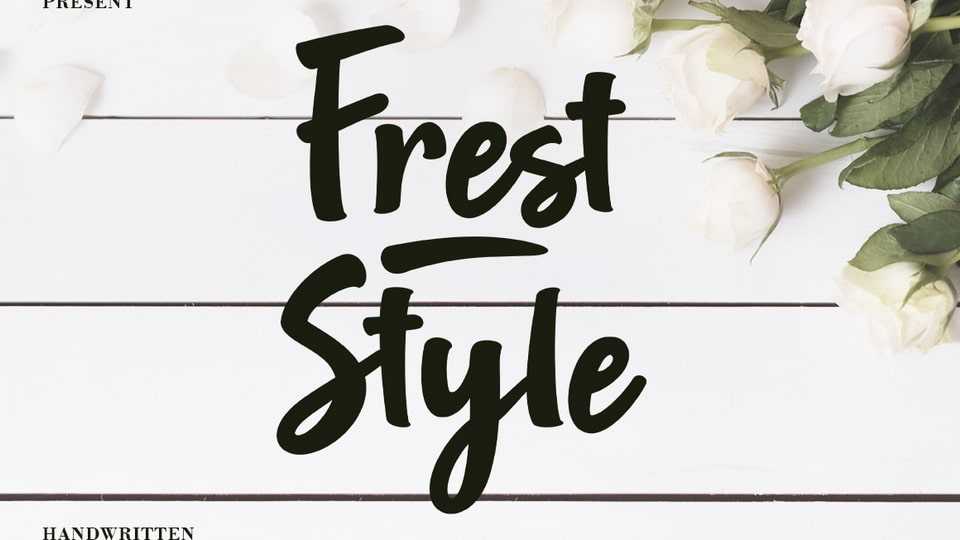
Download Fresh Style font, a modern script style similar to hand lettering, decorative characters, designed to perfectly blend informal, romantic, sassy, sweet script.